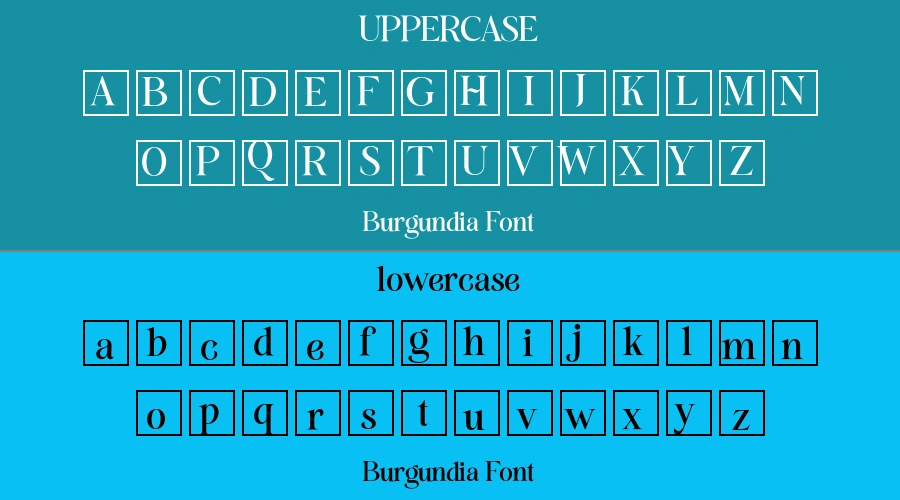
About Burgundia Font
When typographic excellence matters most, Burgundia Font delivers through its thoughtful blend of swash extensions and signature style. Specially crafted for historical publications, it offers the sophistication and cultural relevance required for sophisticated design work. Every detail serves a purpose.
The character set showcases thoughtful details like wedge serifs alongside functional ordinals. This proves especially valuable in exhibition titles, where detail preservation directly influences results. Particular attention was paid to descender depth and user perception during development.